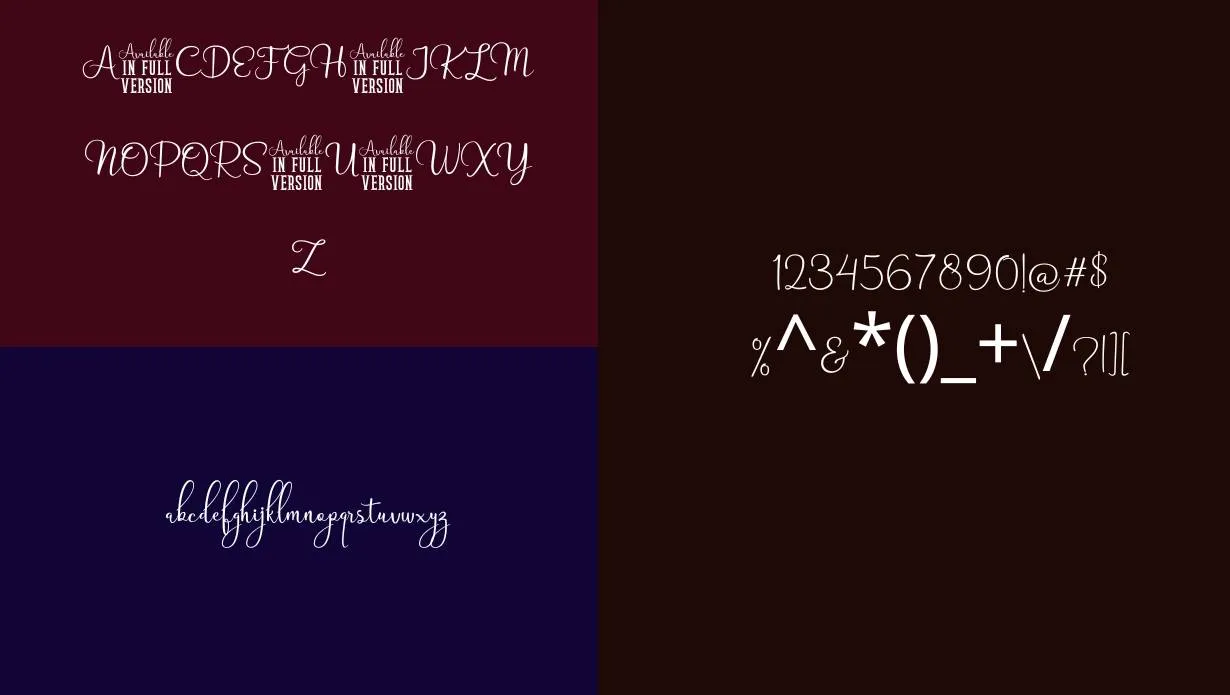
The Shinyday Rockstar font projects a lively and energetic feel, commonly used in music-related designs or vibrant posters. It’s perfect for crafting eye-catching logos or headings using programs like Illustrator.